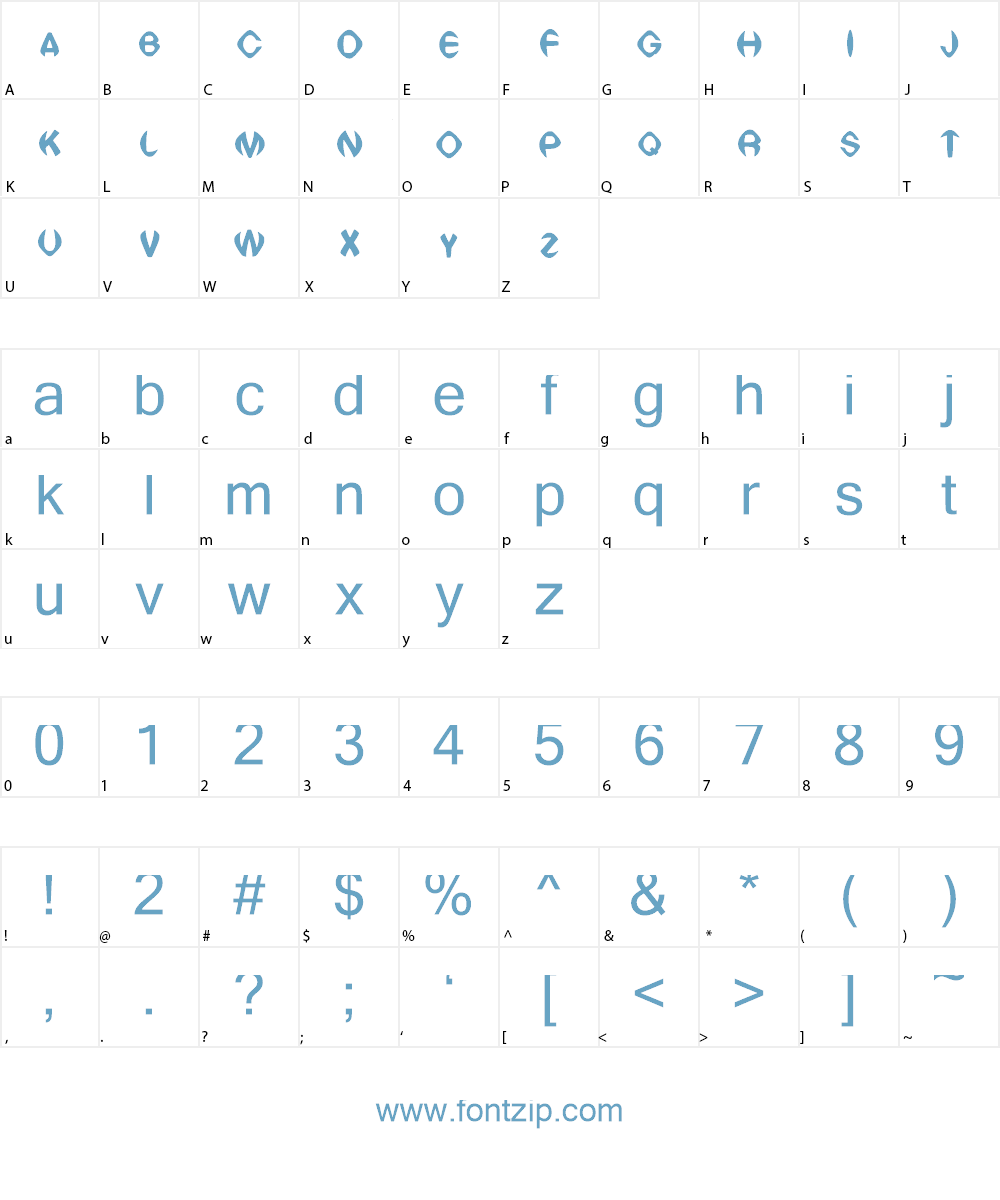
This demo only shacases Reg uppercase. The full version comes in 3 killer styles in a cool extended, wide style, you better check your neck! Light, Reg and Bold.